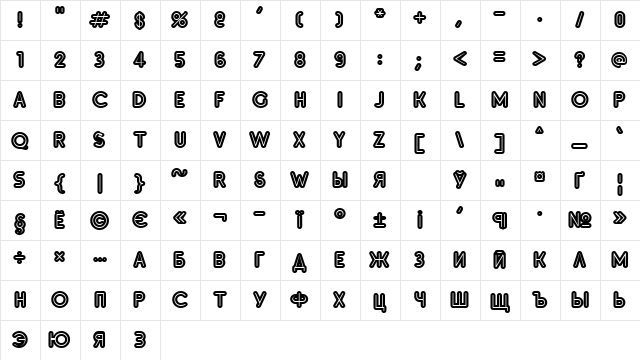
Inset9 Extra Bold
Design Context for Inset9 Typeface
Inset9 offers clean, dependable letterforms without strong stylistic allegiance, making it a practical choice for designers who need flexibility. The heavy weight commands attention and anchors typographic hierarchies.